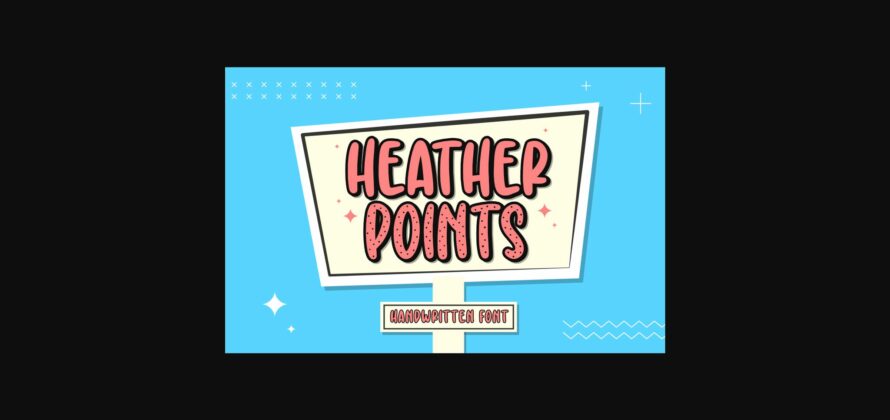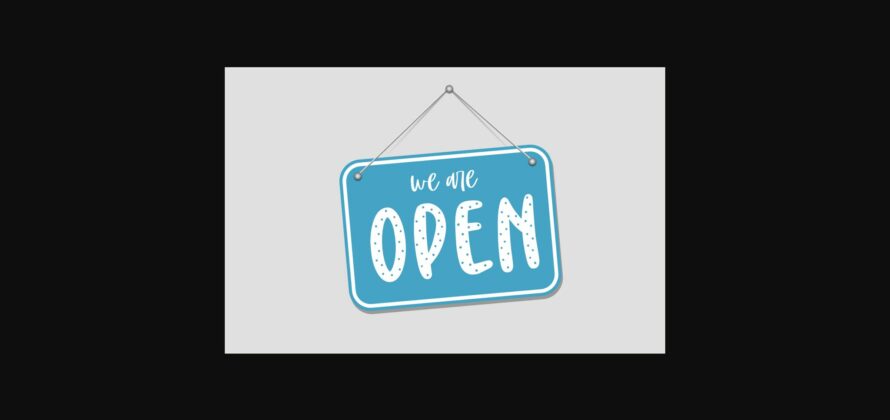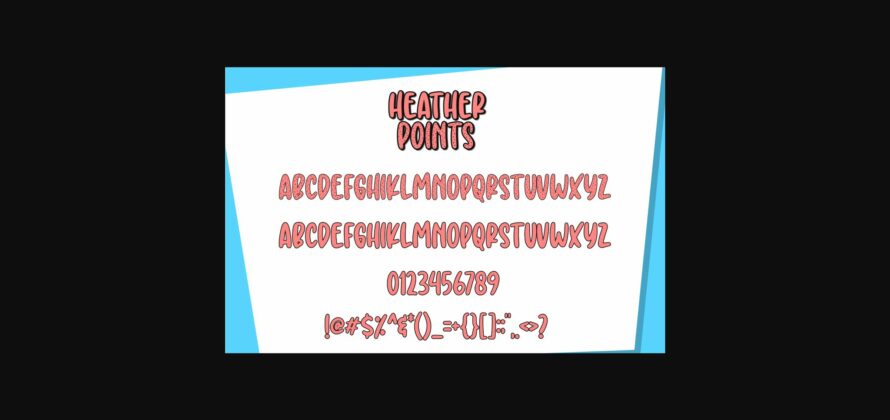
Heather Points Font
About Heather Points Font
Heather Points is a cute and friendly handwritten font. It features two whimsical styles and it’s perfect for logos, branding, labels, stationery, wedding invitations, greeting cards and much more!